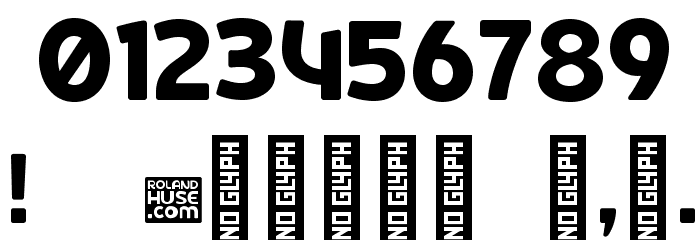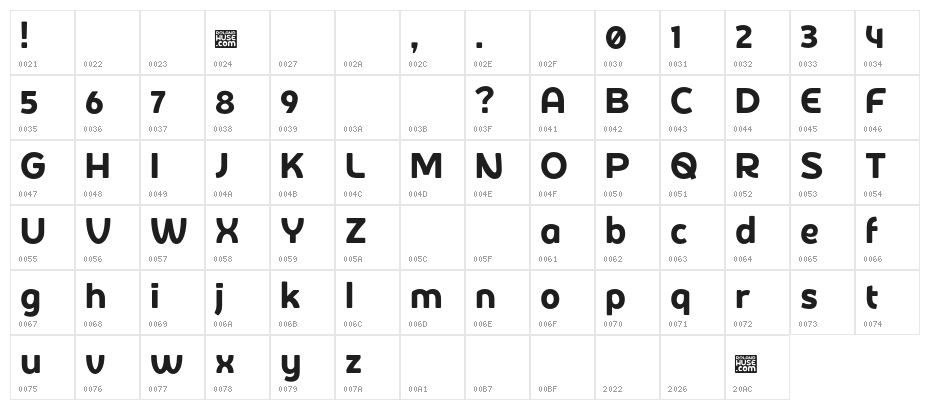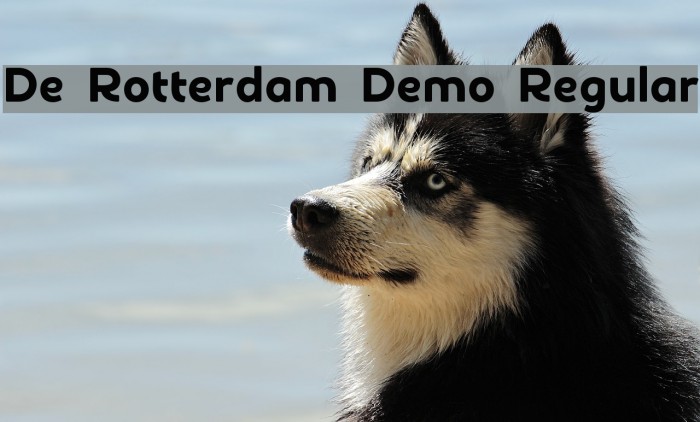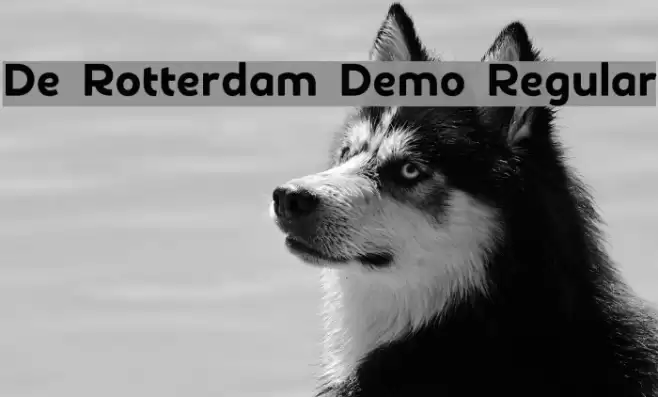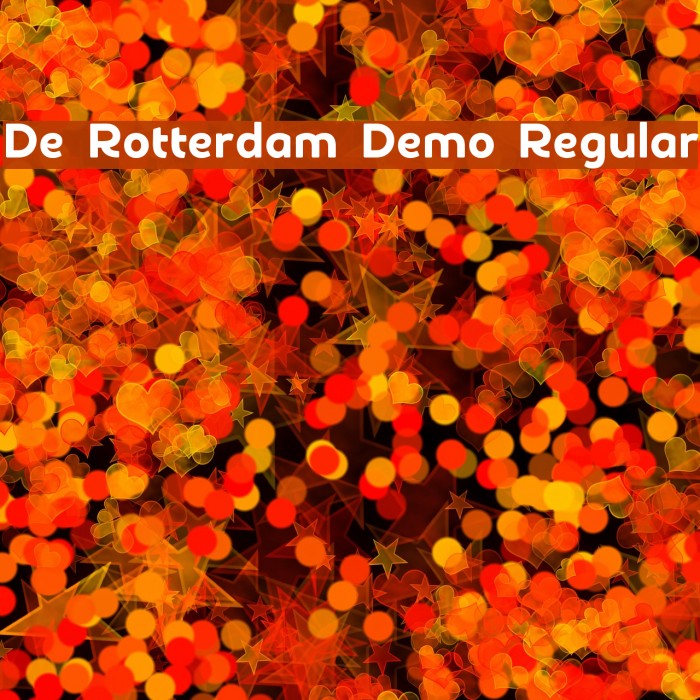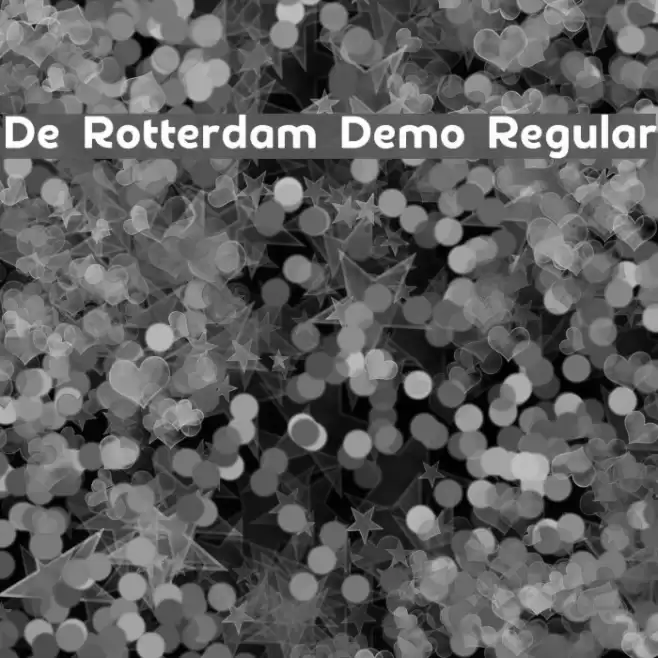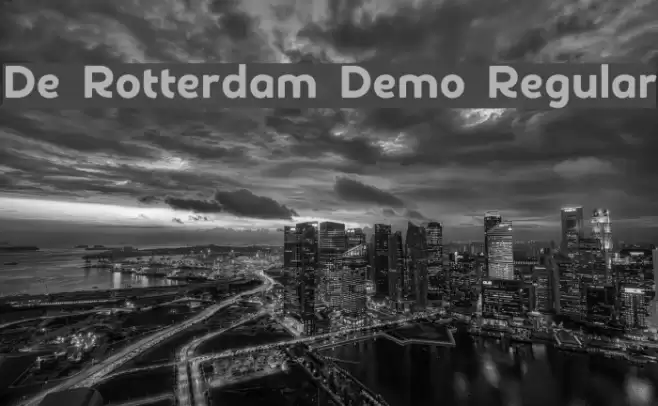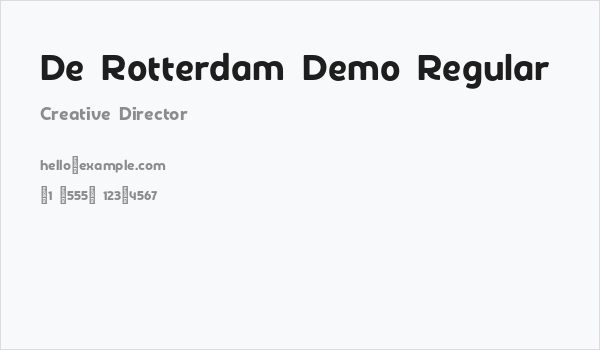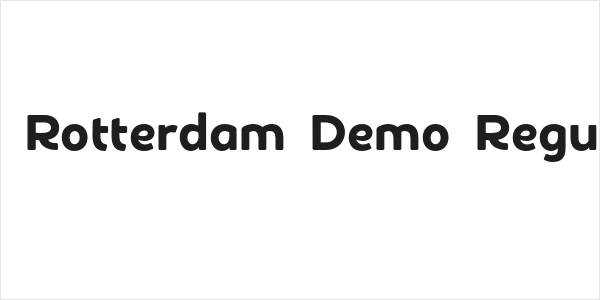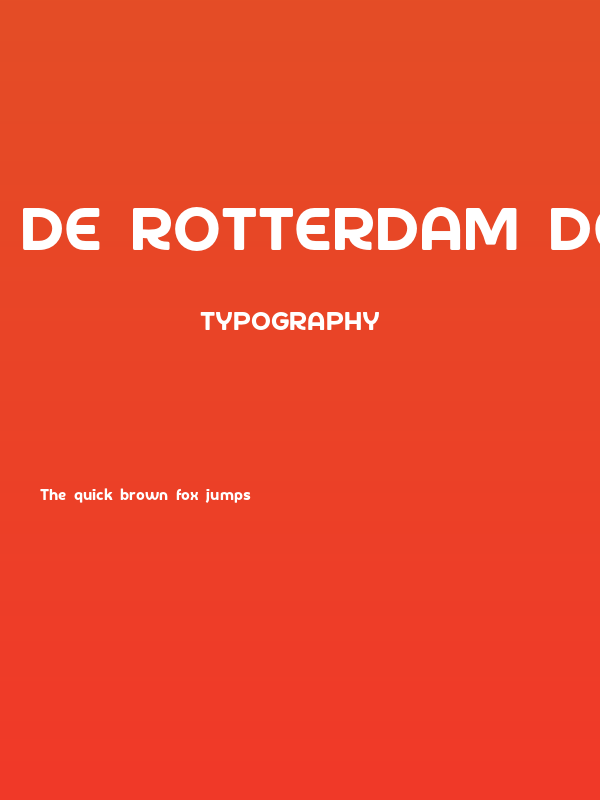
De Rotterdam Demo Regular Font
De Rotterdam Demo Regular Description
This font features a bold and rounded sans-serif style, characterized by its smooth curves and uniform stroke width. The uppercase and lowercase letters maintain a consistent height, creating a harmonious and balanced appearance. The numerals are clear and easily distinguishable, complementing the overall design. The font's modern aesthetic is suitable for various applications, offering a clean and approachable look. Its simplicity and readability make it versatile for both digital and print media.
Use CaseHeadlines, Logos, Branding
Proposed ProjectsIdeal for branding, signage, headlines, and digital content where a modern and friendly appearance is desired.